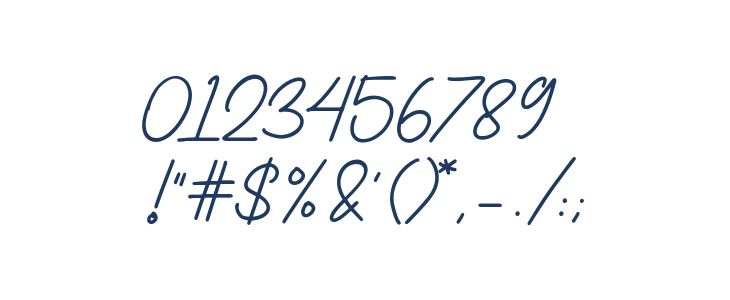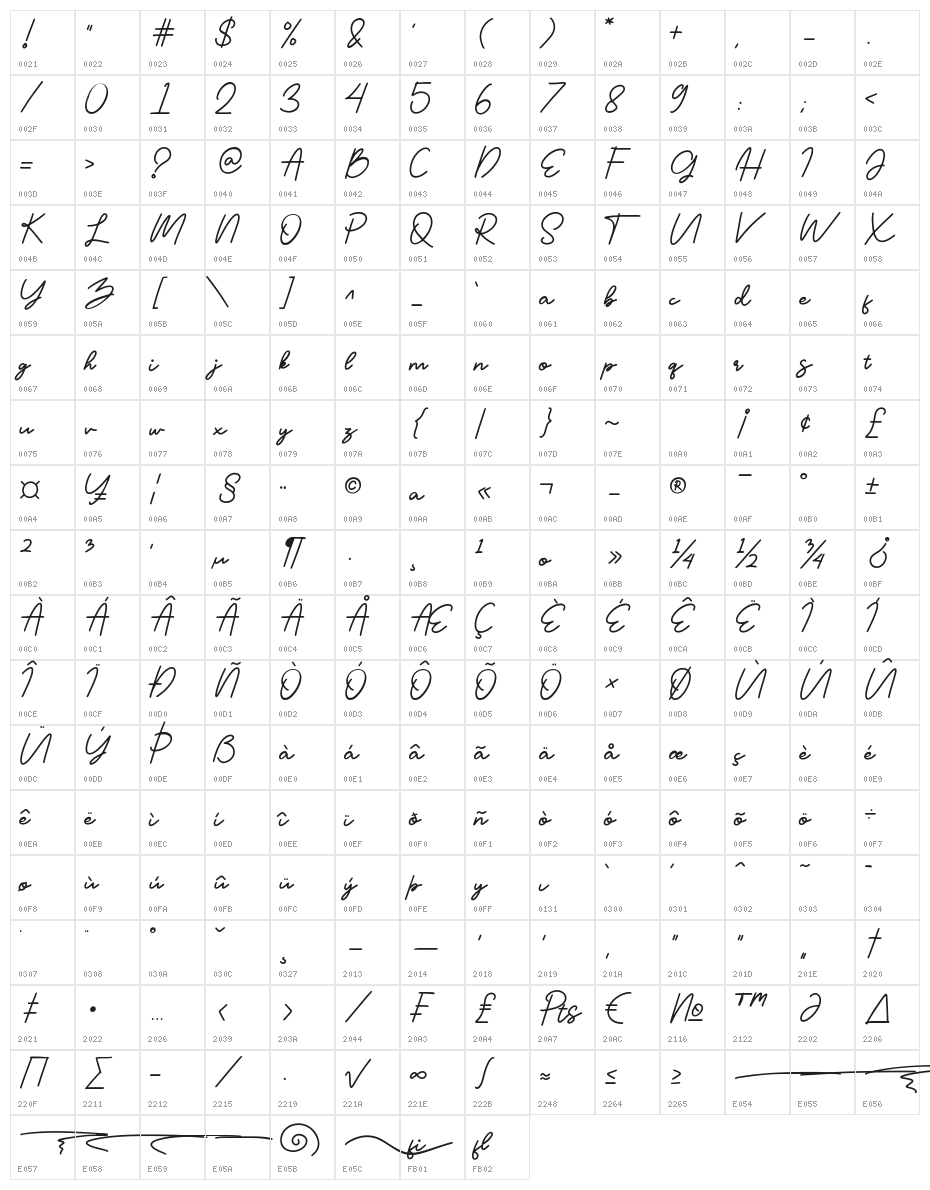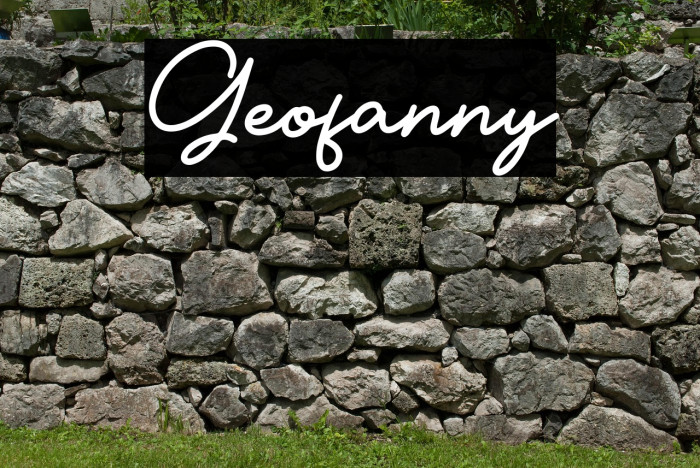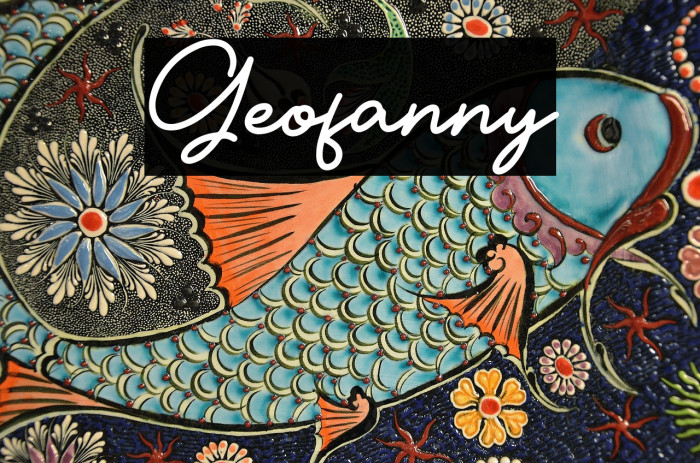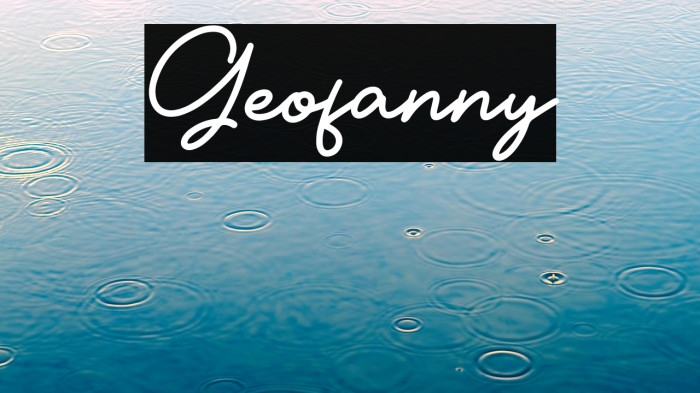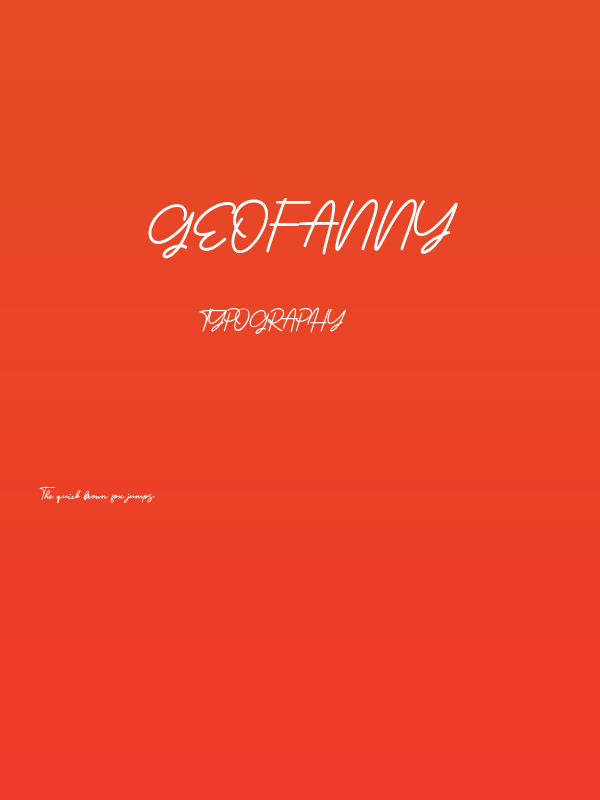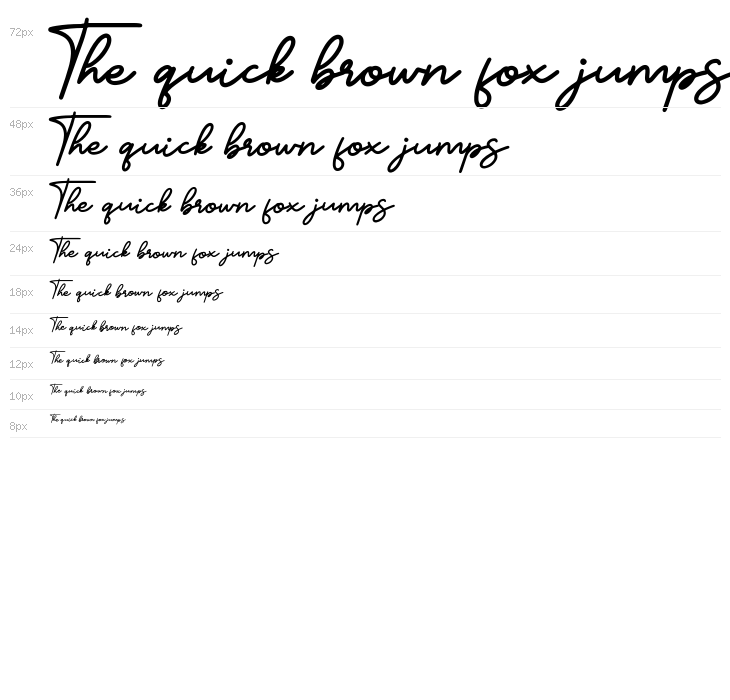
Geofanny Font
Geofanny Description
This font exudes a lively and dynamic energy with its cursive, handwritten style. The letters are elegantly connected, creating a fluid and continuous flow across words. The uppercase characters maintain a consistent height, while the lowercase letters are slightly smaller, adding a touch of sophistication. The numerals are well-integrated, matching the overall style with their smooth curves. Special characters are thoughtfully designed to complement the alphabet, enhancing the font's versatility. This font is perfect for projects that require a personal touch, such as invitations, greeting cards, or branding materials.